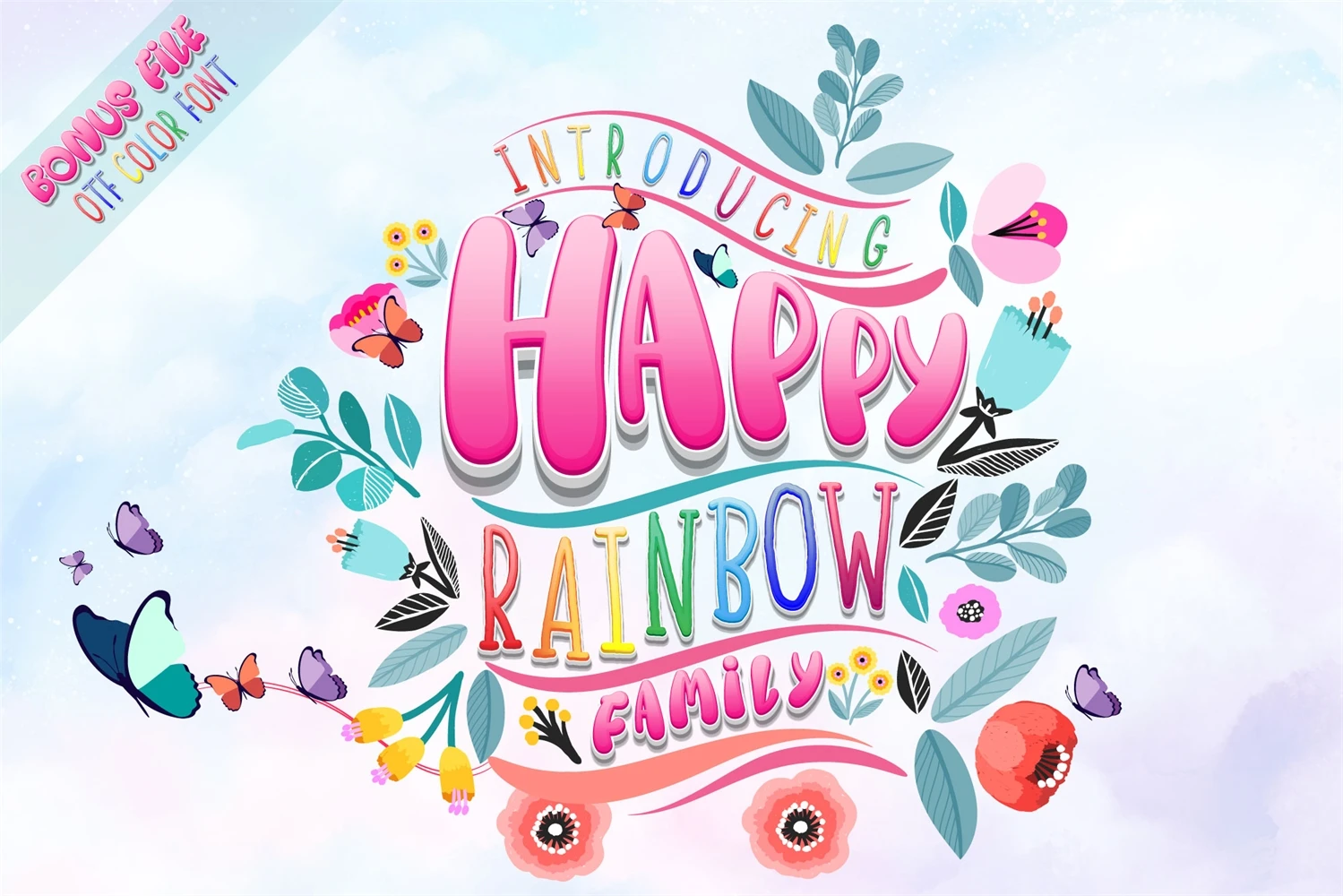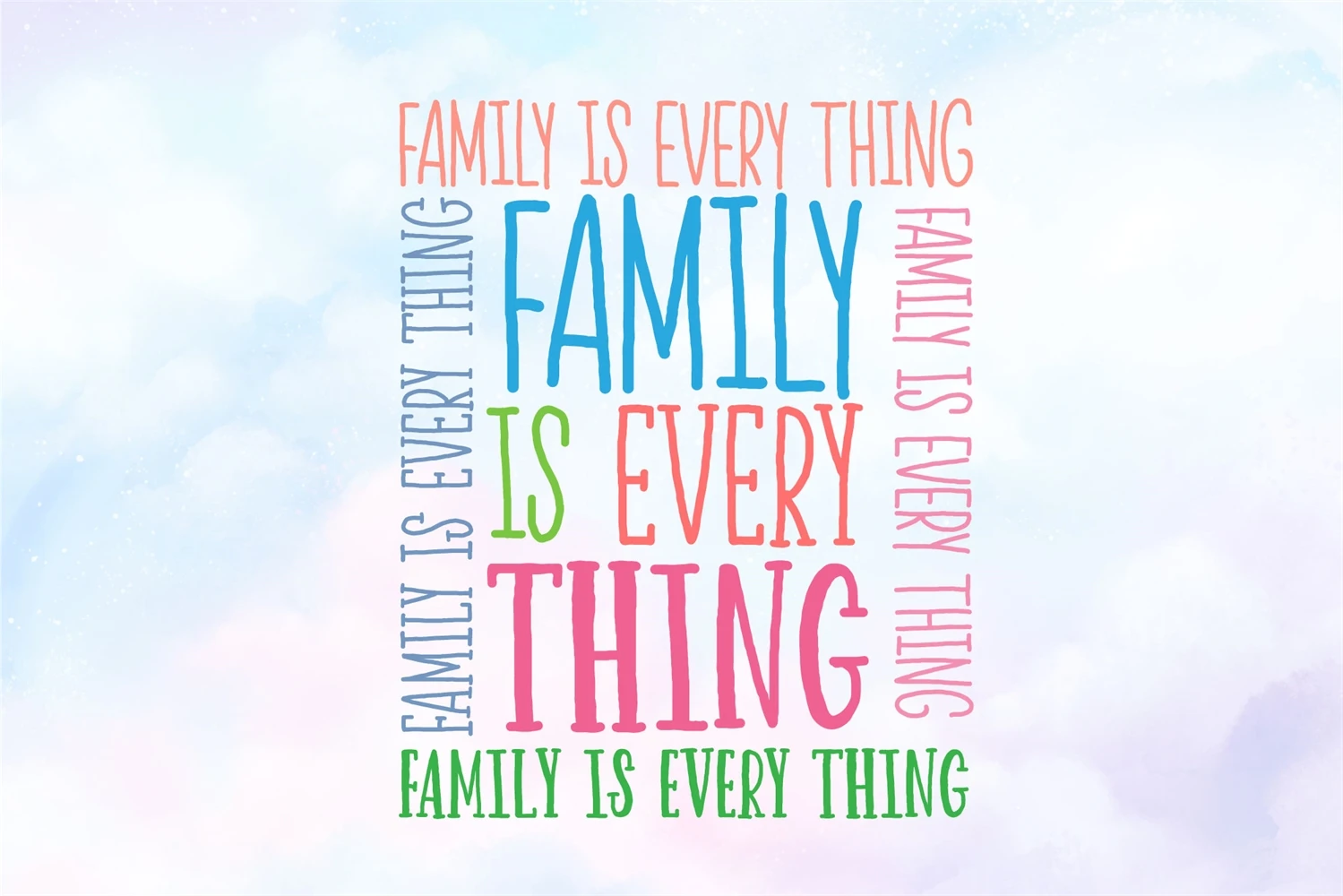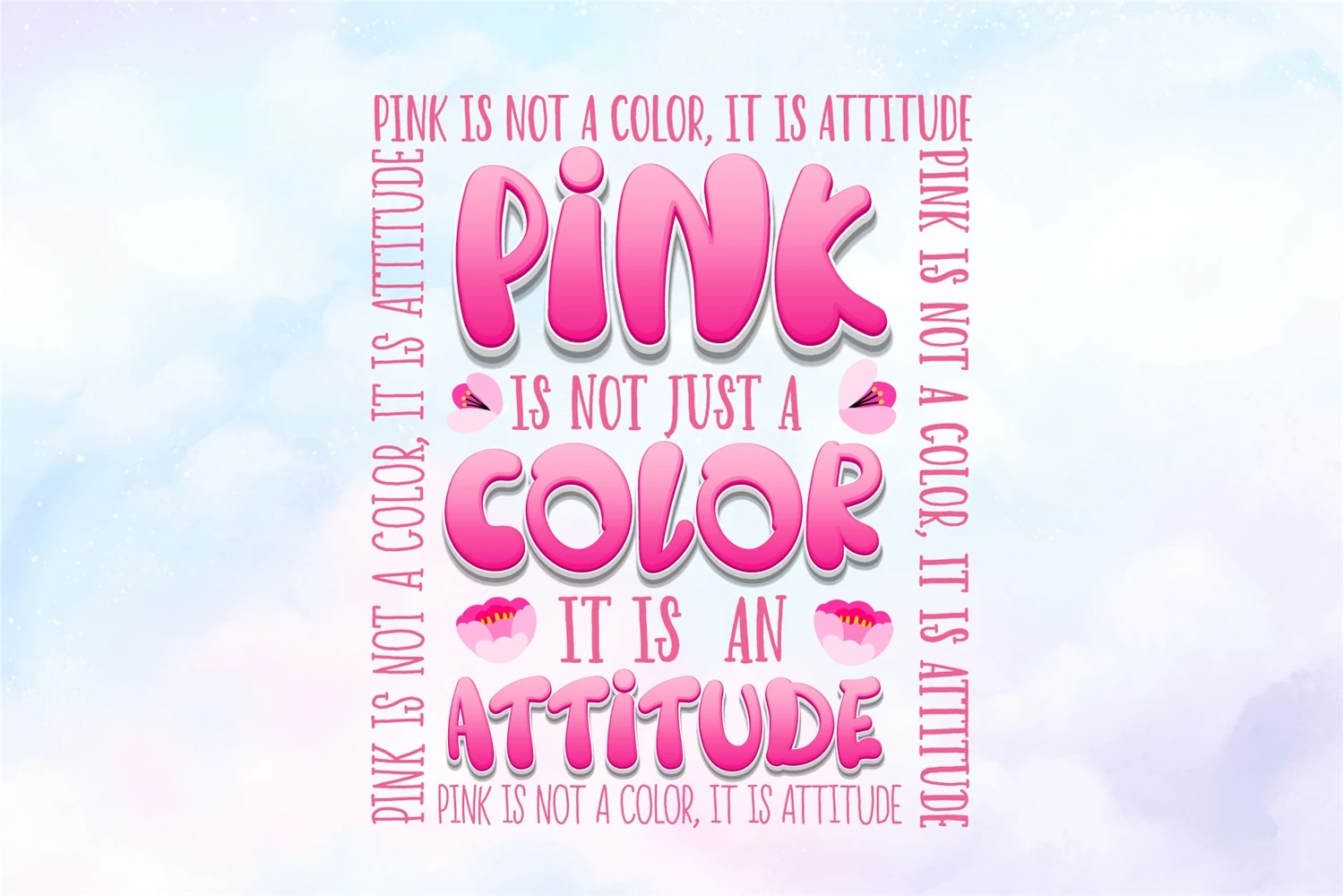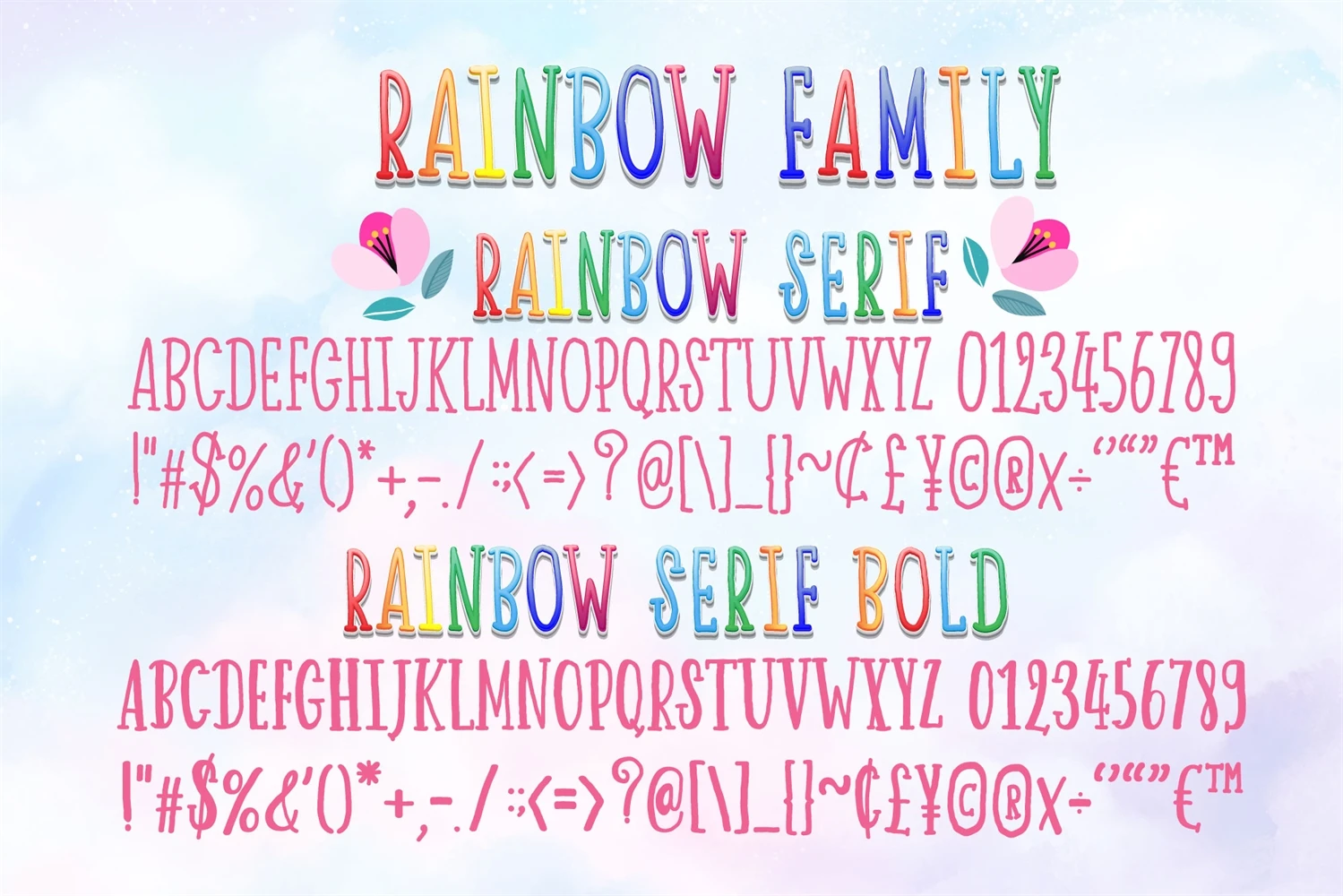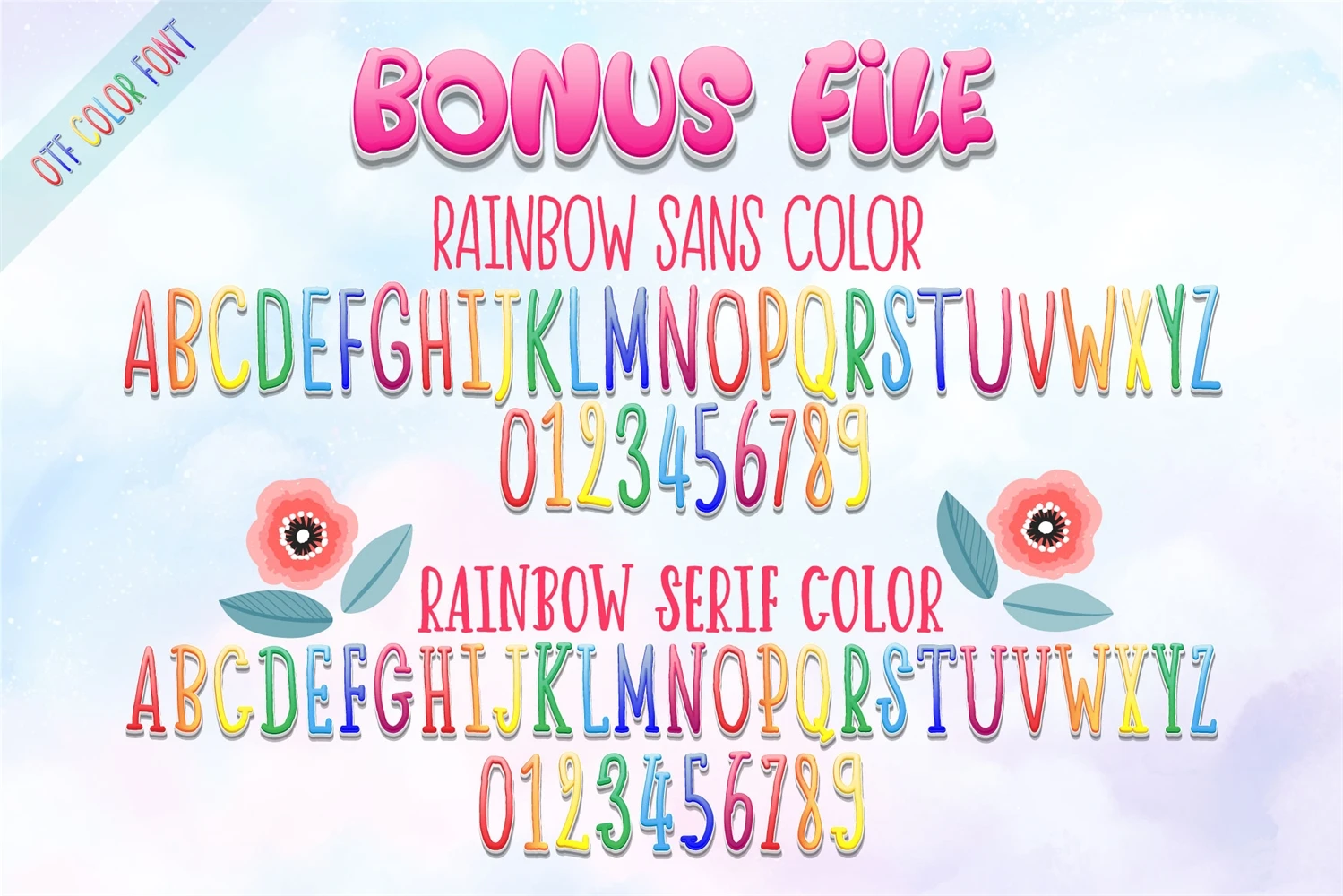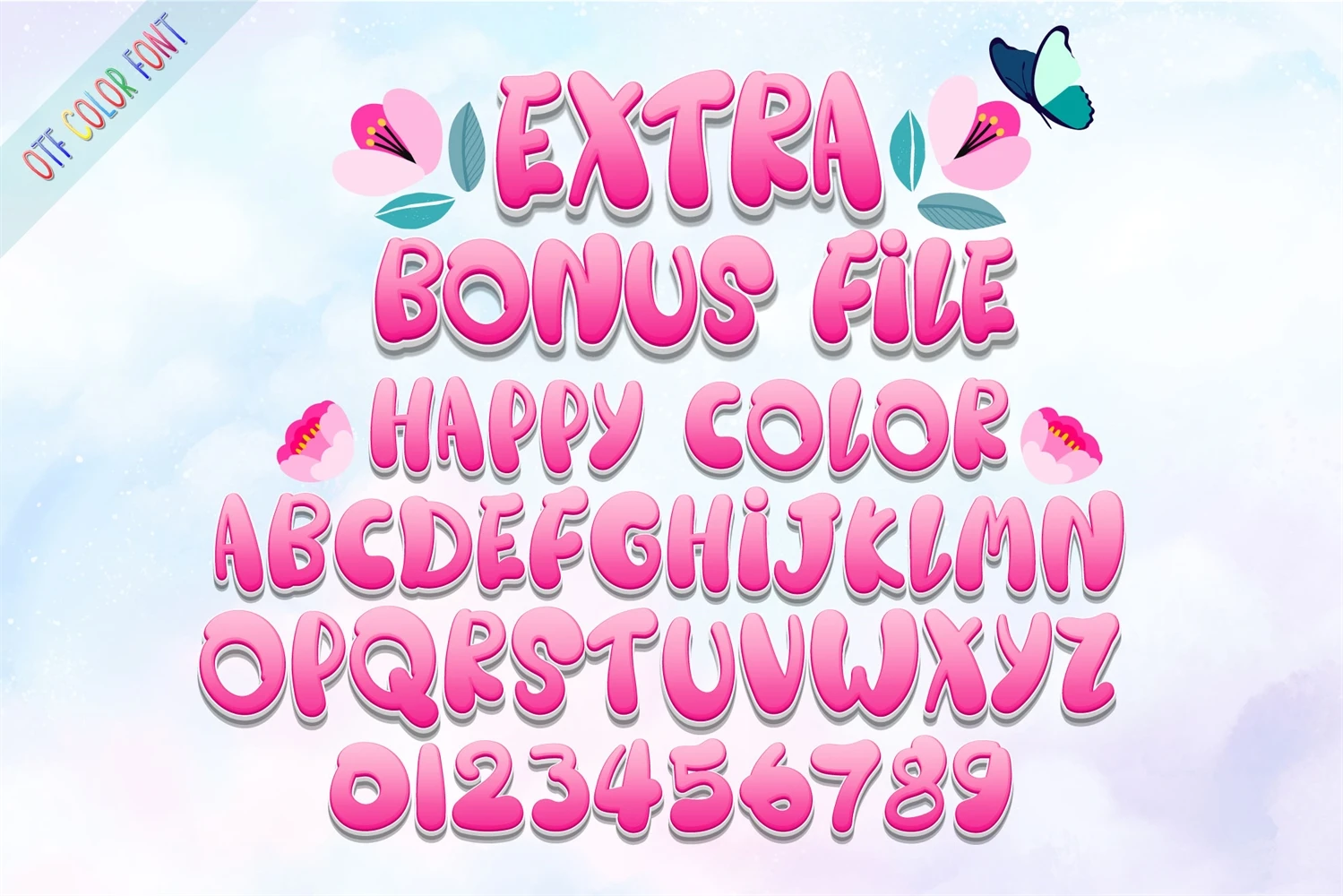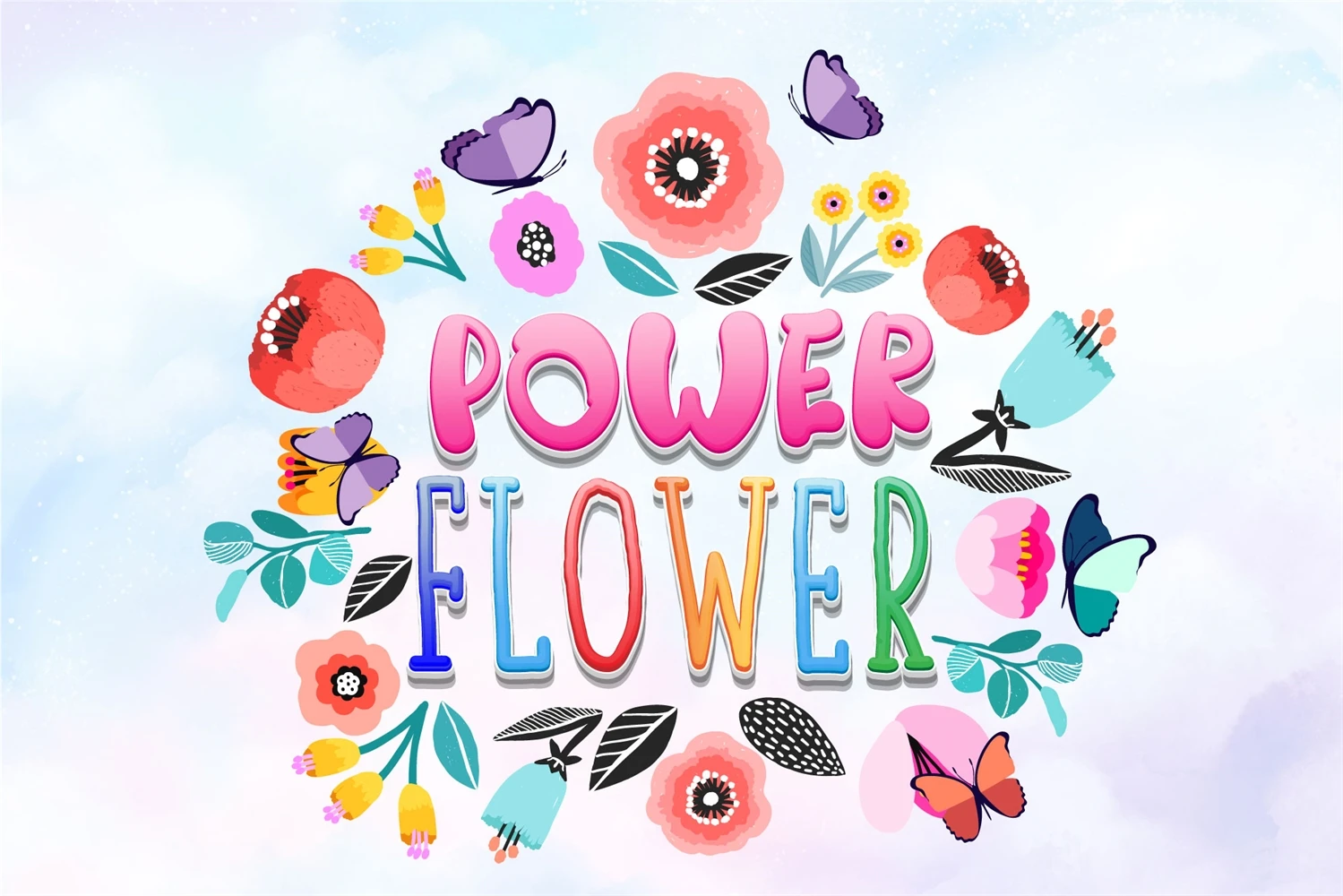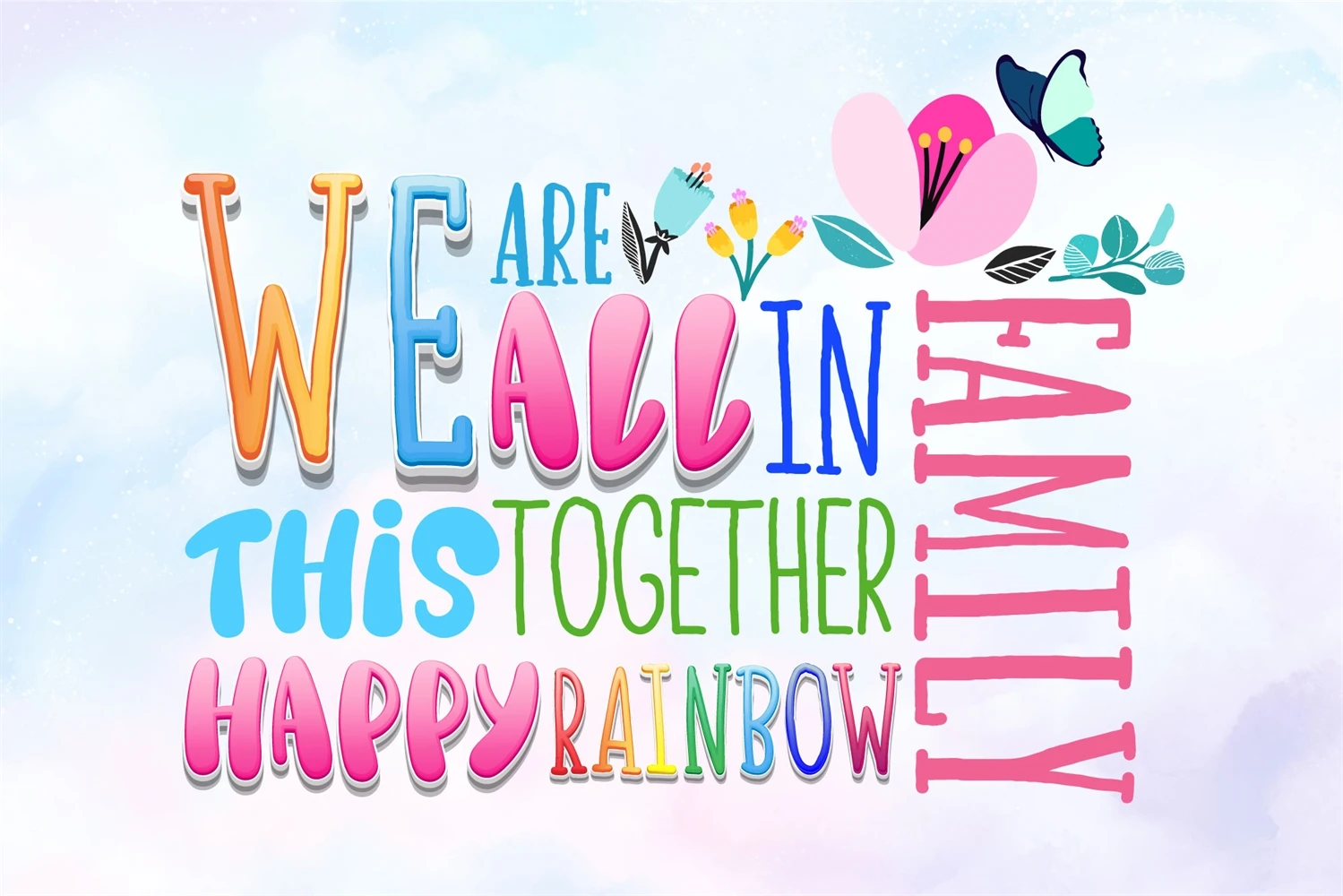
Happy Rainbow Family is a delightful and playful handwritten font that exudes a sense of warmth and joy. This font is perfect for adding a personal touch to your designs, including postcards, cartoon books, templates, DIY projects, and more. With its smooth curves and natural flow, Happy Rainbow Family is both modern and charming, making it ideal for a variety of creative projects.